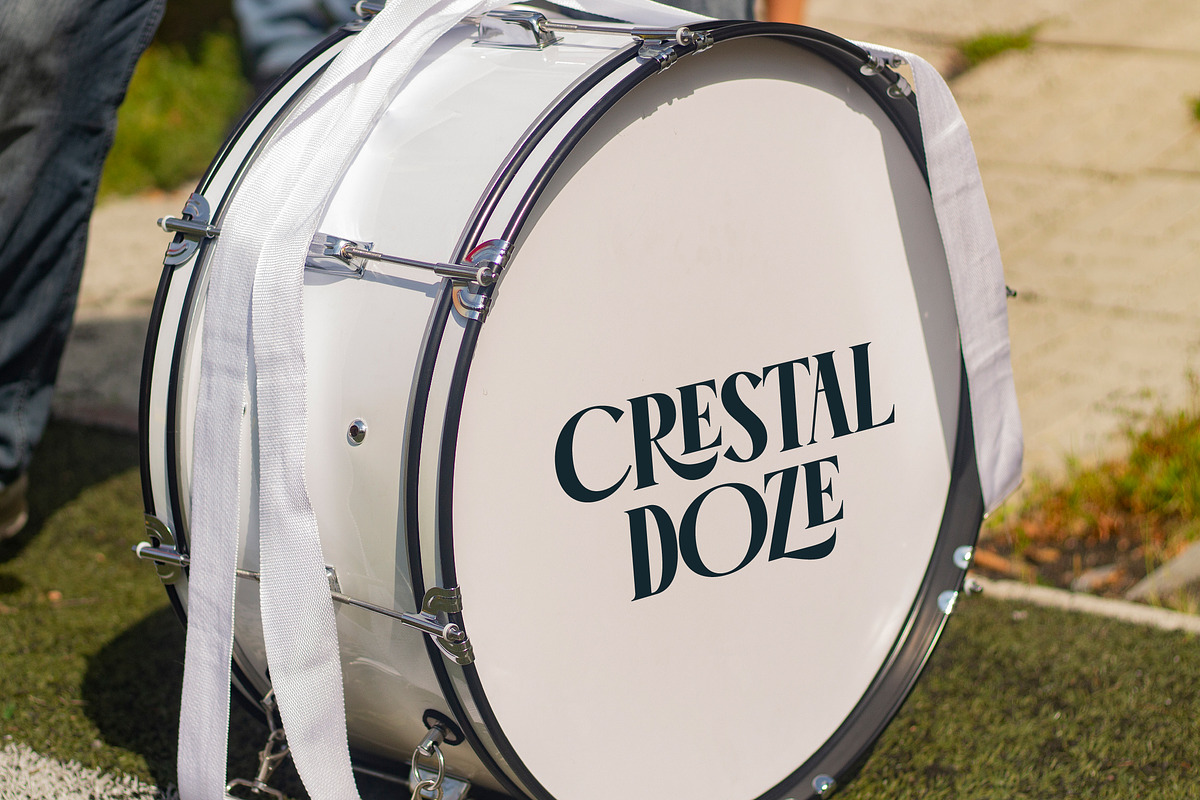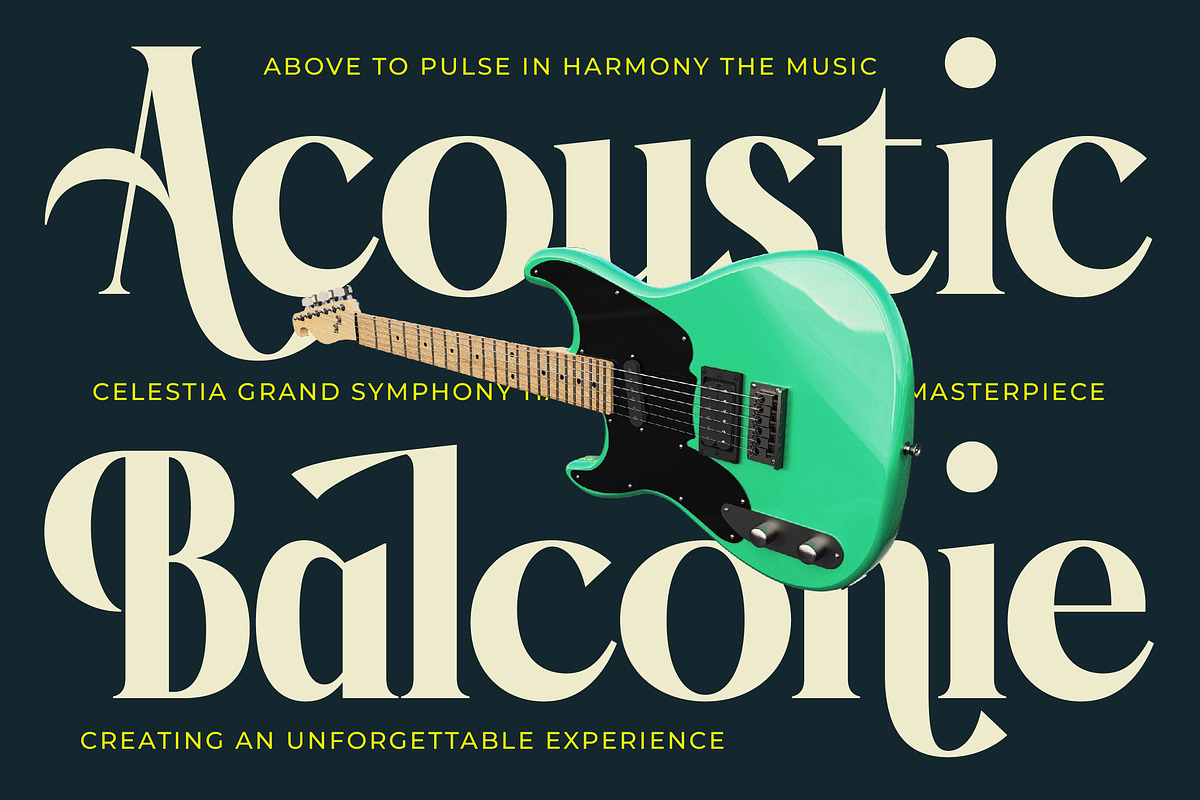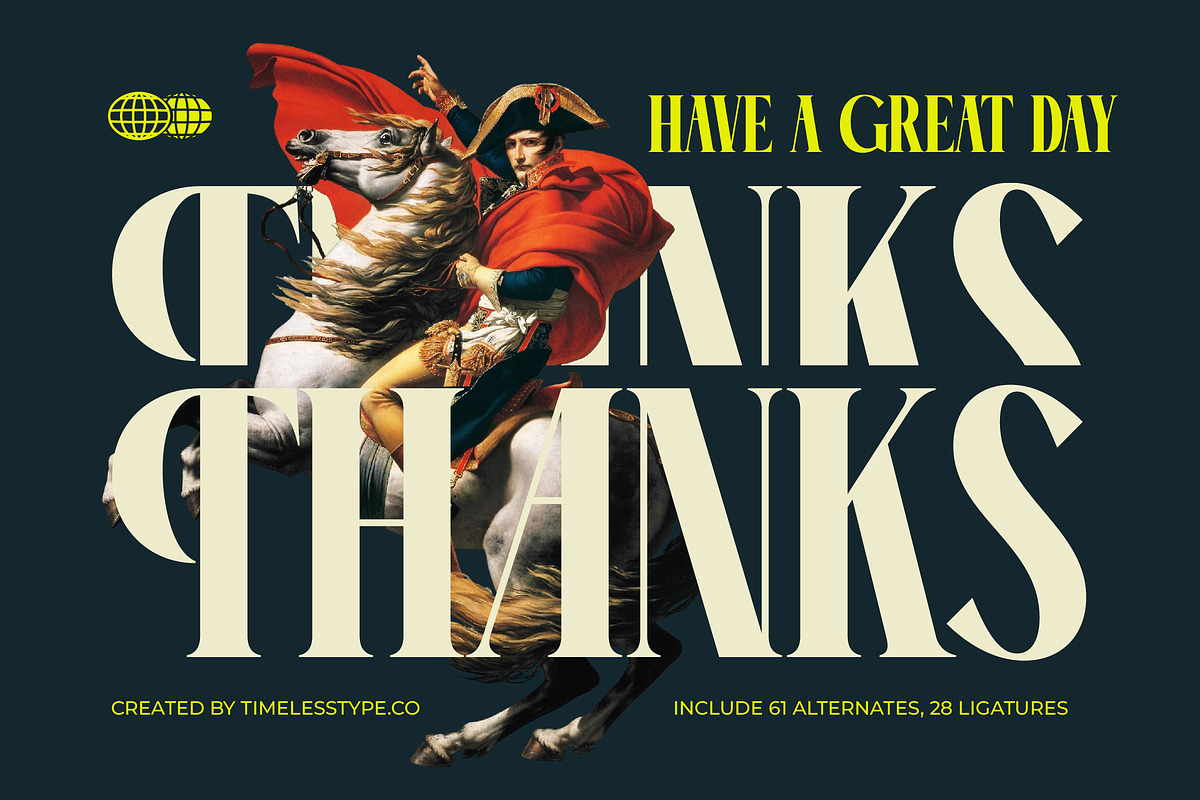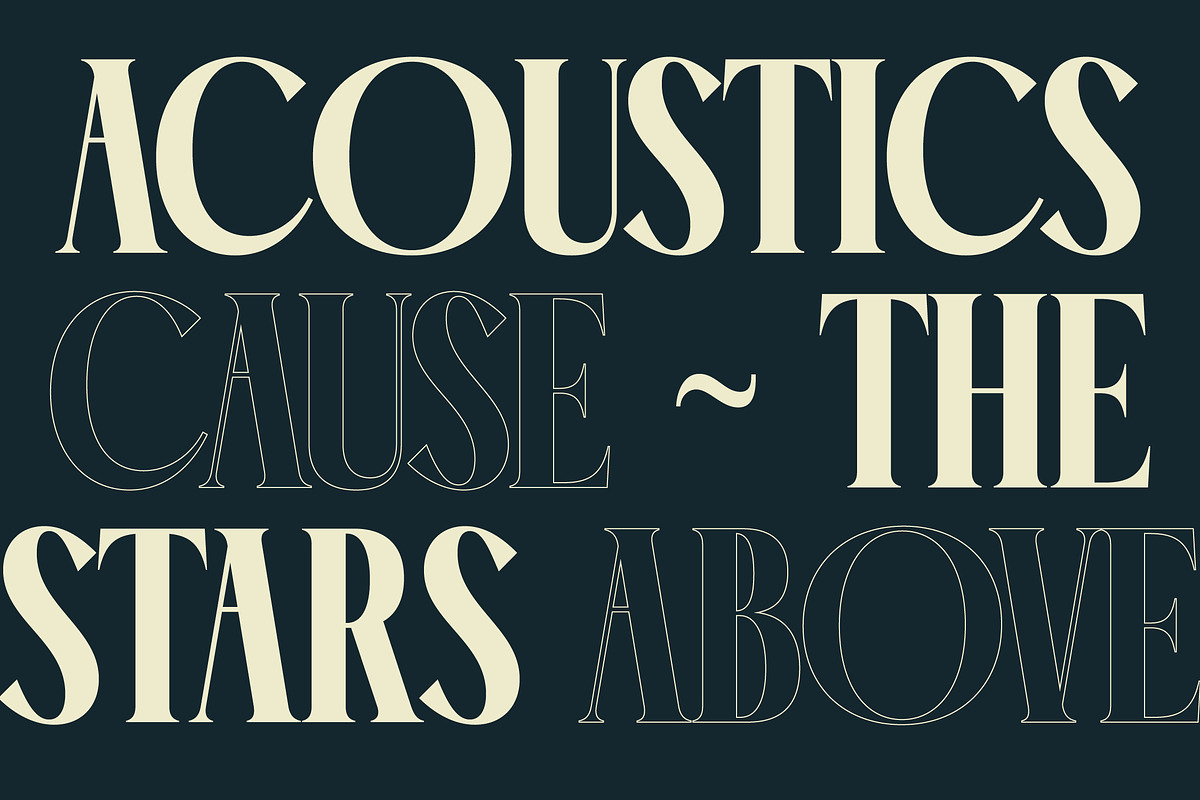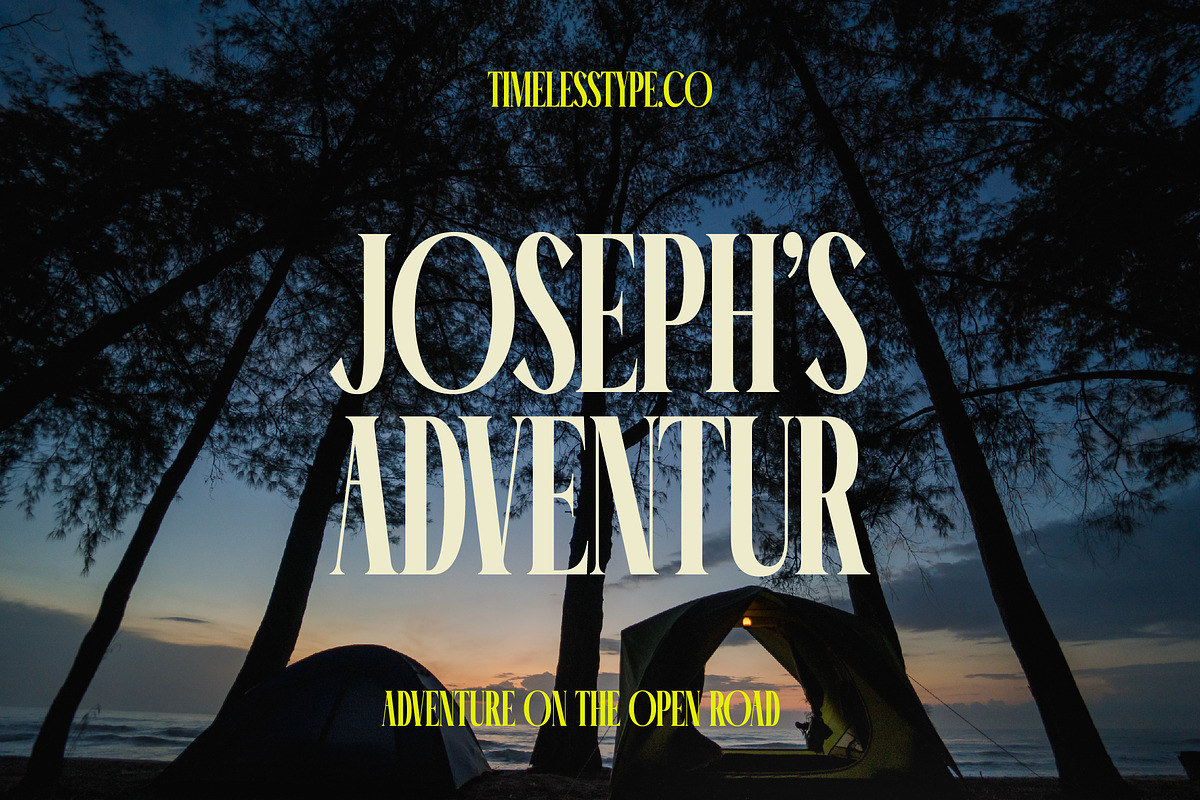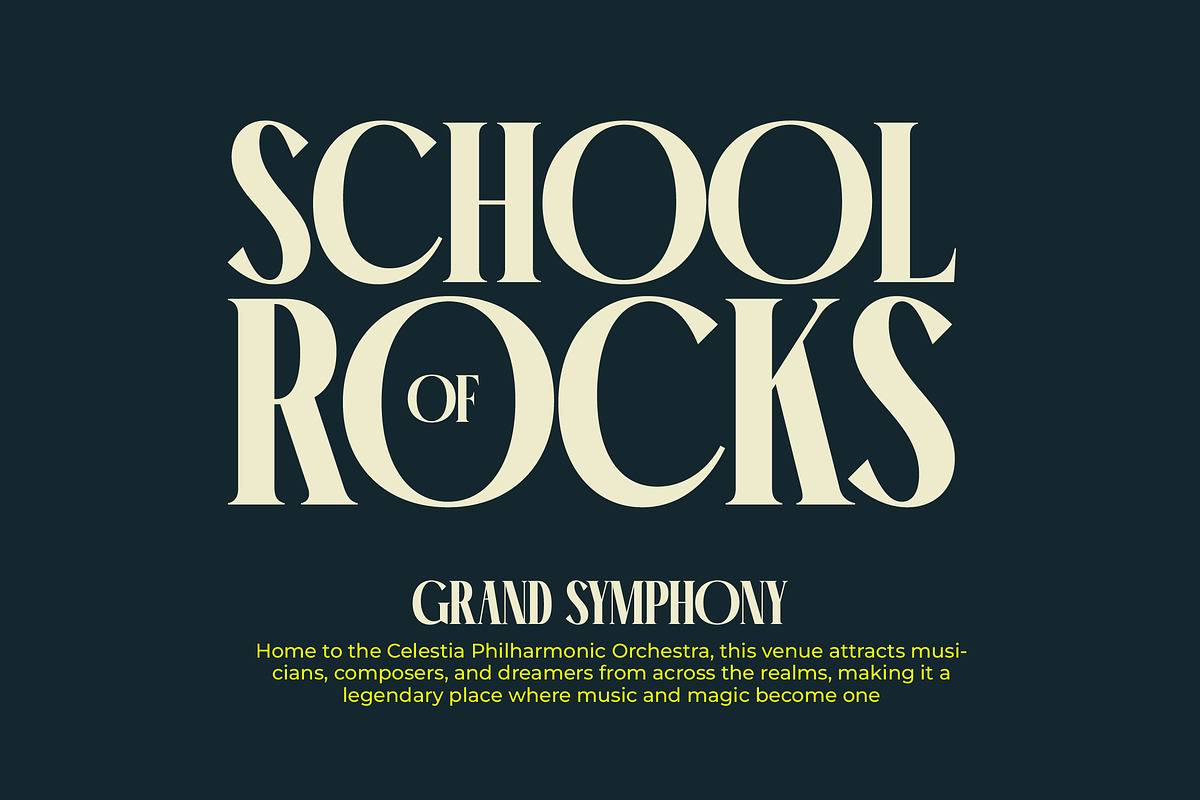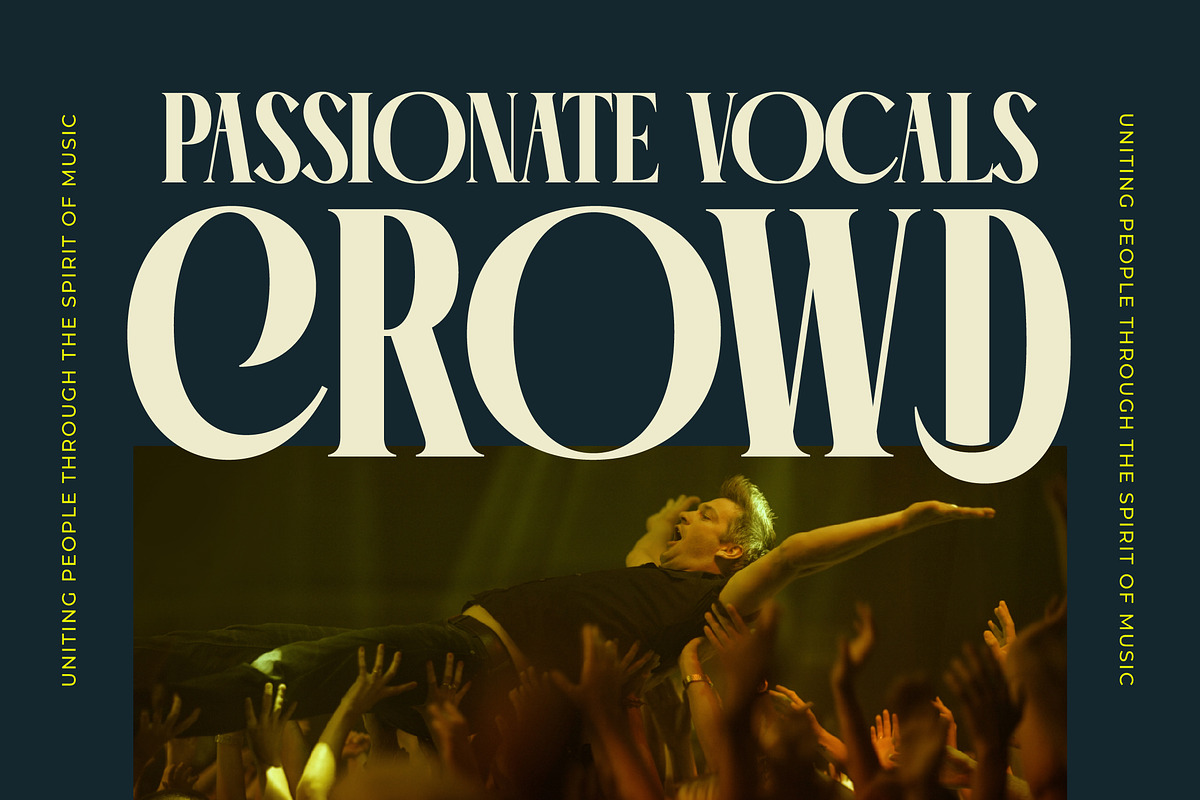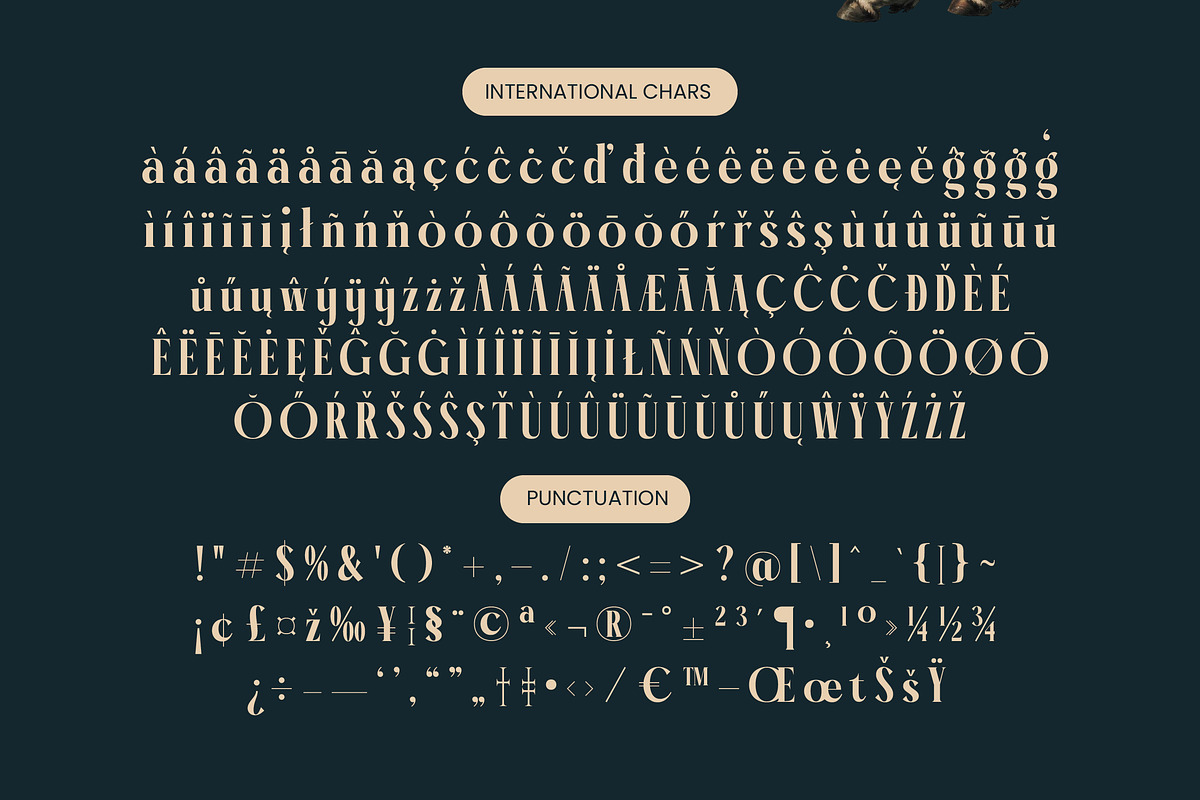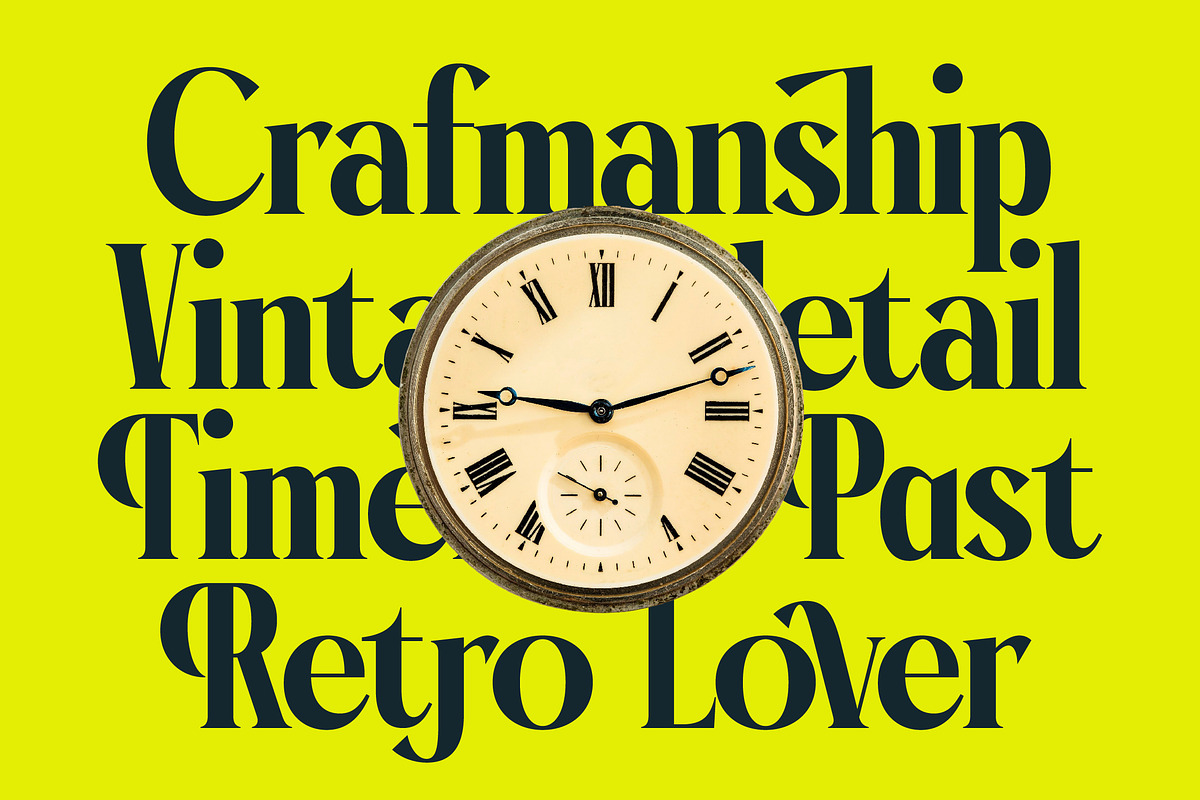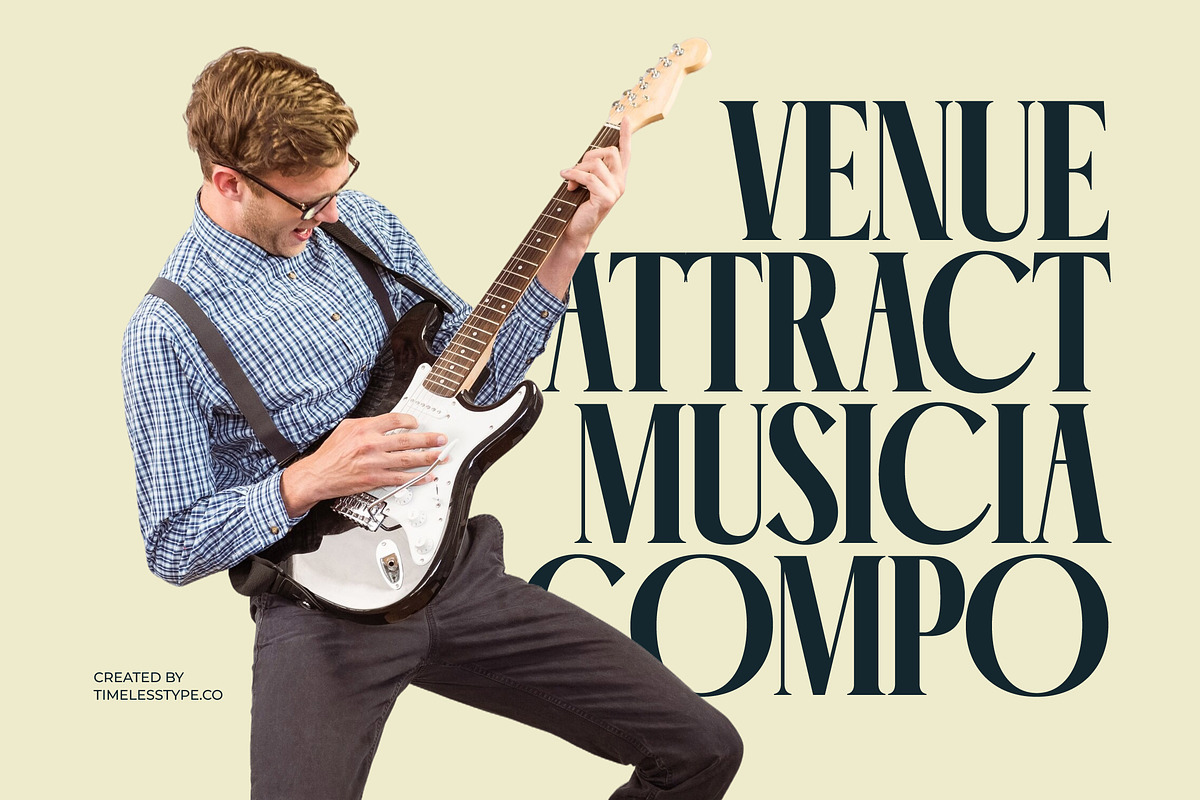
Garaleo Modern Luxury Serif
Elevate your design narrative with the commanding presence of Garaleo, a typeface that balances historical weight with contemporary finesse. This stunning display serif is crafted for those who demand a visual identity that speaks of authority and timeless beauty.
Inspired by the grandiose aesthetics of neoclassical art and the sharp precision of modern editorial layouts, this font draws its soul from an era of revolution and elegance. It captures the spirit of dramatic equestrian portraits, where every curve and sharp edge tells a story of ambition and refined taste.
This modern serif display is defined by its extreme stroke variation, offering a luxury typography experience that is both bold and sophisticated. As a high-contrast serif, it functions perfectly as an editorial font that ensures maximum branding impact across high-end digital and print platforms.
Perfectly aligned with the current modern serif trend, this typeface meets the demand for editorial display fonts that feel personal and handcrafted. It represents the height of character-driven typography, moving away from sterile minimalism toward a more expressive and storied visual language.
Designers will find this font indispensable for high-stakes logo design and comprehensive branding projects that require a touch of prestige. Its versatility makes it a premier choice for editorial layouts, luxury packaging, romantic wedding stationery, and avant-garde fashion magazines.
Beyond its striking letterforms, the package is rich with 28 ligatures and 61 unique alternates that allow for custom typographic flourishes. Full multilingual support and a comprehensive set of international characters ensure that your message resonates globally without technical limitations.